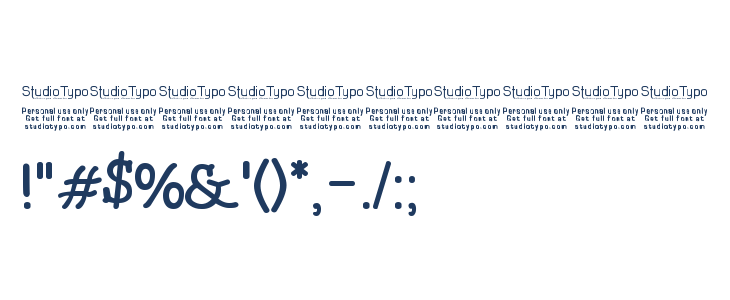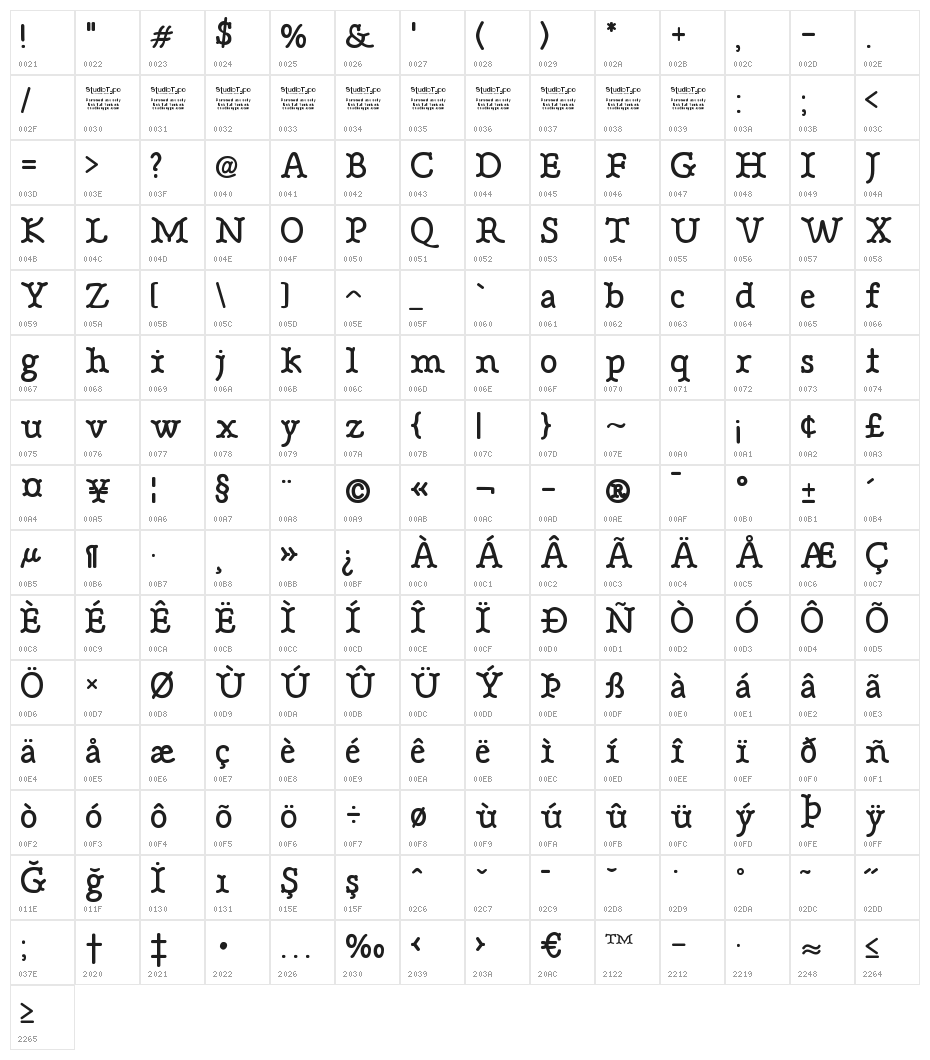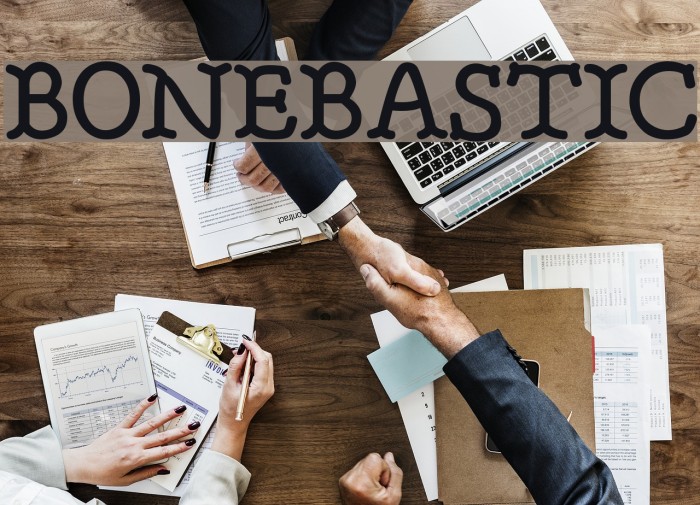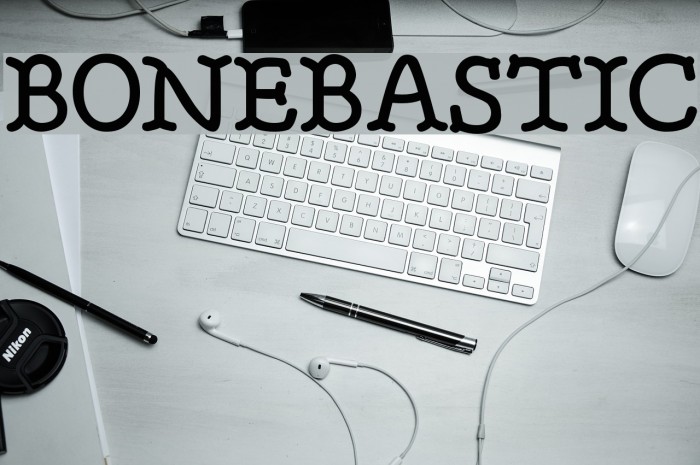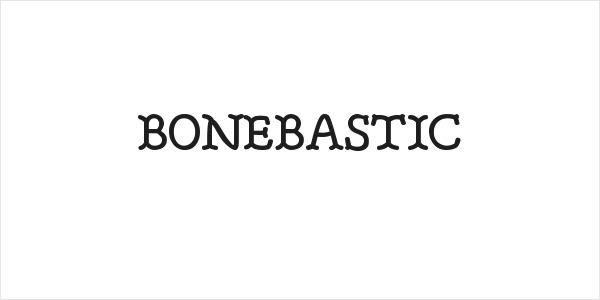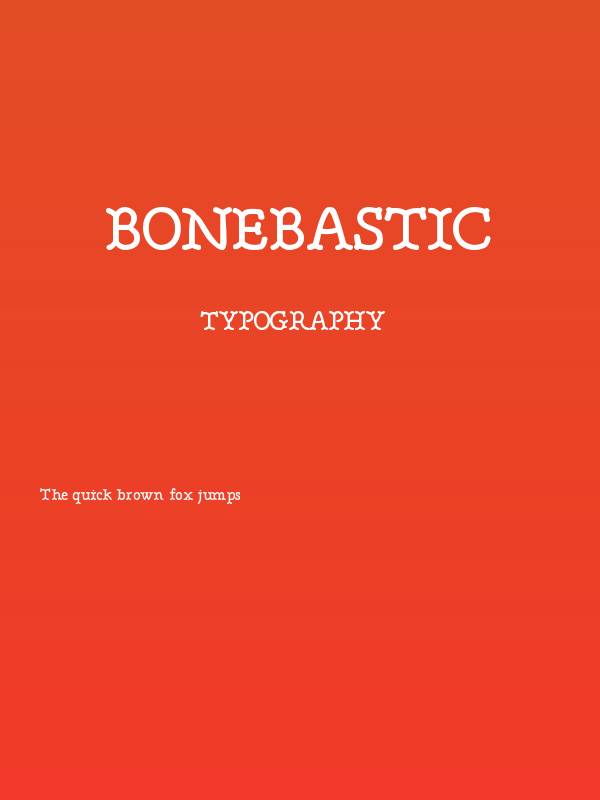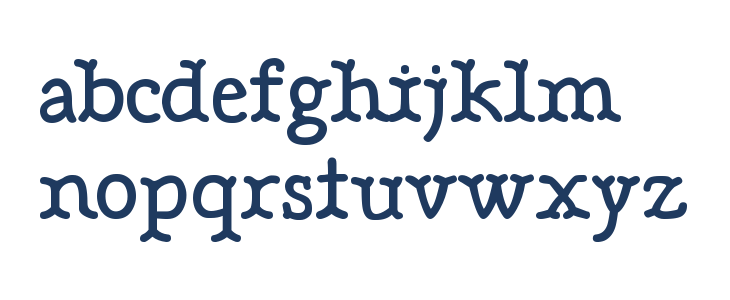
BONEBASTIC Font
BONEBASTIC Description
This font exhibits a playful and bold character with a unique, rounded serif style. The letters are crafted with a consistent thickness, giving it a solid and robust appearance. The rounded edges and subtle curves add a whimsical touch, making it stand out as a decorative typeface. The uppercase and lowercase letters maintain a uniform height, while the numerals and special characters are designed to complement the overall style. This font's distinct personality makes it suitable for creative and eye-catching designs.
| Overall Style | Playful, Decorative |
| Proposed Projects | Ideal for children's books, playful branding, posters, and creative packaging designs. |